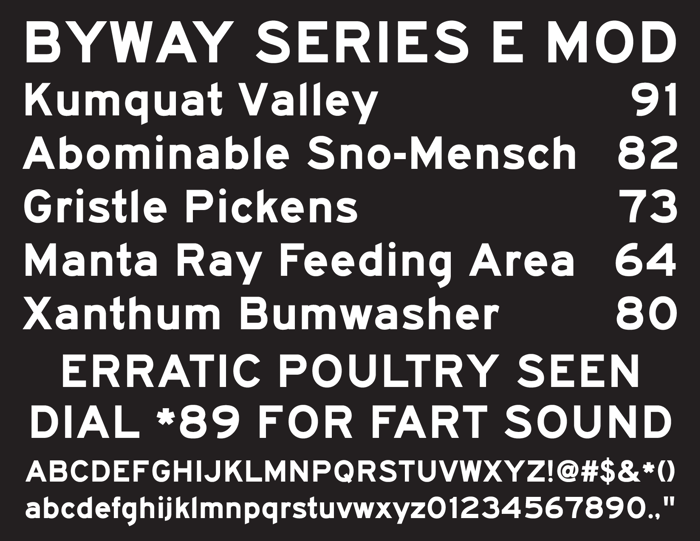
BywayEModified Font
This represents a modification to Byway E in keeping with and very closely following the modification to Highway Gothic Series E (5/6 H/V stress) used in the most commonly seen interstate signs.